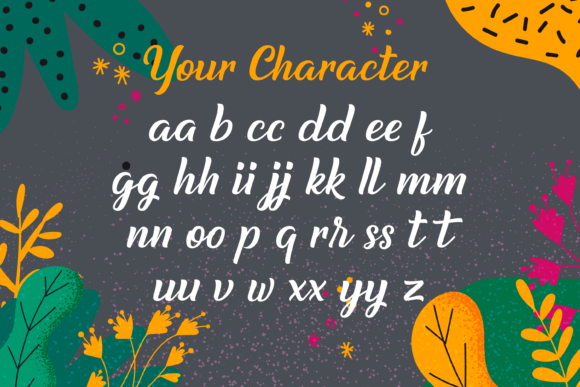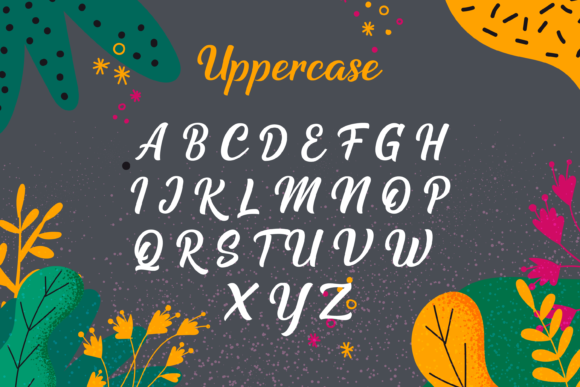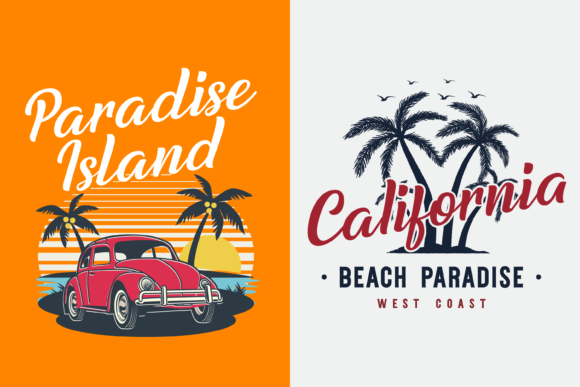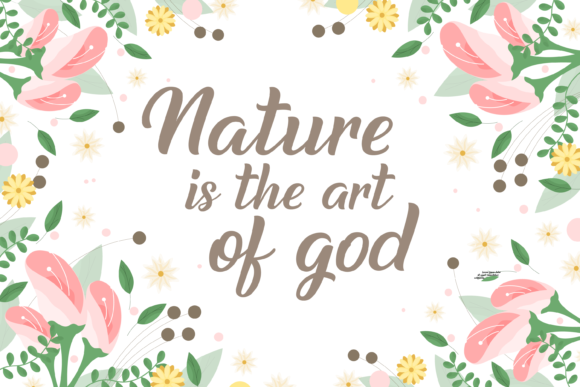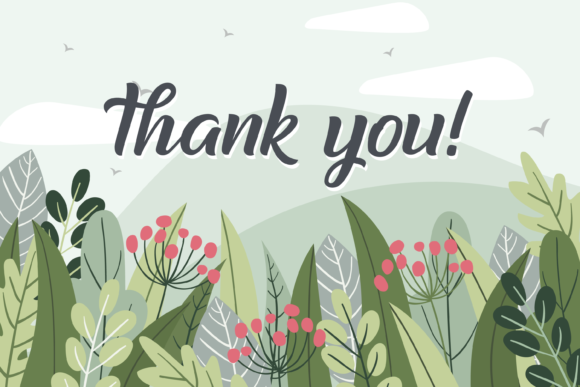
Discover the Charming Helio Tropisme Font: Elevate Your Design Projects with its Vibrant Flair
In the world of typography, fonts play a crucial role in bringing designs to life. Among the numerous fonts available, Helio Tropisme stands out for its unique charm and vibrant personality. This comprehensive article will delve into the characteristics, benefits, and uses of the Helio Tropisme font, exploring how it can transform your design projects into true standouts.
What is Helio Tropisme Font?
Helio Tropisme is a distinctive font that exudes charm and vibrancy. Its unique design elements make it an excellent choice for designers and crafters seeking to add a touch of personality to their work. This font is perfect for those who want to create visually appealing and engaging designs that capture the audience’s attention.
Key Features of Helio Tropisme Font
- Unique Charm: Helio Tropisme boasts a one-of-a-kind design that sets it apart from other fonts. Its charm lies in its elegant and refined features, making it suitable for a wide range of design applications.
- Vibrant Personality: The font’s vibrant personality is evident in its bold and eye-catching appearance. It’s perfect for designs that require a pop of personality and flair.
- Versatility: Helio Tropisme is a versatile font that can be used in various design projects, from branding and advertising to packaging and digital media.
Benefits of Using Helio Tropisme Font
Using Helio Tropisme font in your design projects offers several benefits, including:
- Enhanced Visual Appeal: The font’s unique charm and vibrant personality can elevate the visual appeal of your designs, making them more engaging and attention-grabbing.
- Improved Brand Identity: Helio Tropisme can help establish a strong brand identity by adding a touch of personality and sophistication to your designs.
- Creative Freedom: The font’s versatility allows you to experiment with different design styles and applications, giving you the creative freedom to explore new ideas.
Design Applications for Helio Tropisme Font
Helio Tropisme font can be used in a variety of design applications, including:
- Branding and Advertising: Use Helio Tropisme to create eye-catching logos, posters, and advertisements that capture the audience’s attention.
- Packaging Design: Add a touch of personality to your packaging designs with Helio Tropisme, making your products stand out on store shelves.
- Digital Media: Use the font in your digital media projects, such as social media graphics, website headers, and email newsletters, to create a cohesive brand image.
Tips for Using Helio Tropisme Font Effectively
To get the most out of Helio Tropisme font, follow these tips:
- Pair it with Neutral Fonts: Pair Helio Tropisme with neutral fonts to create a balanced design and avoid visual overload.
- Experiment with Colors: Try different color combinations to find the perfect match for your design and make Helio Tropisme shine.
- Use it Sparingly: Use Helio Tropisme sparingly to create visual interest and avoid overwhelming the audience.
Helio Tropisme font is a charming and vibrant typeface that can elevate your design projects to new heights. Its unique charm, vibrant personality, and versatility make it an excellent choice for designers and crafters seeking to add a touch of personality to their work. By understanding the benefits and applications of Helio Tropisme, you can unlock its full potential and create stunning designs that capture the audience’s attention.